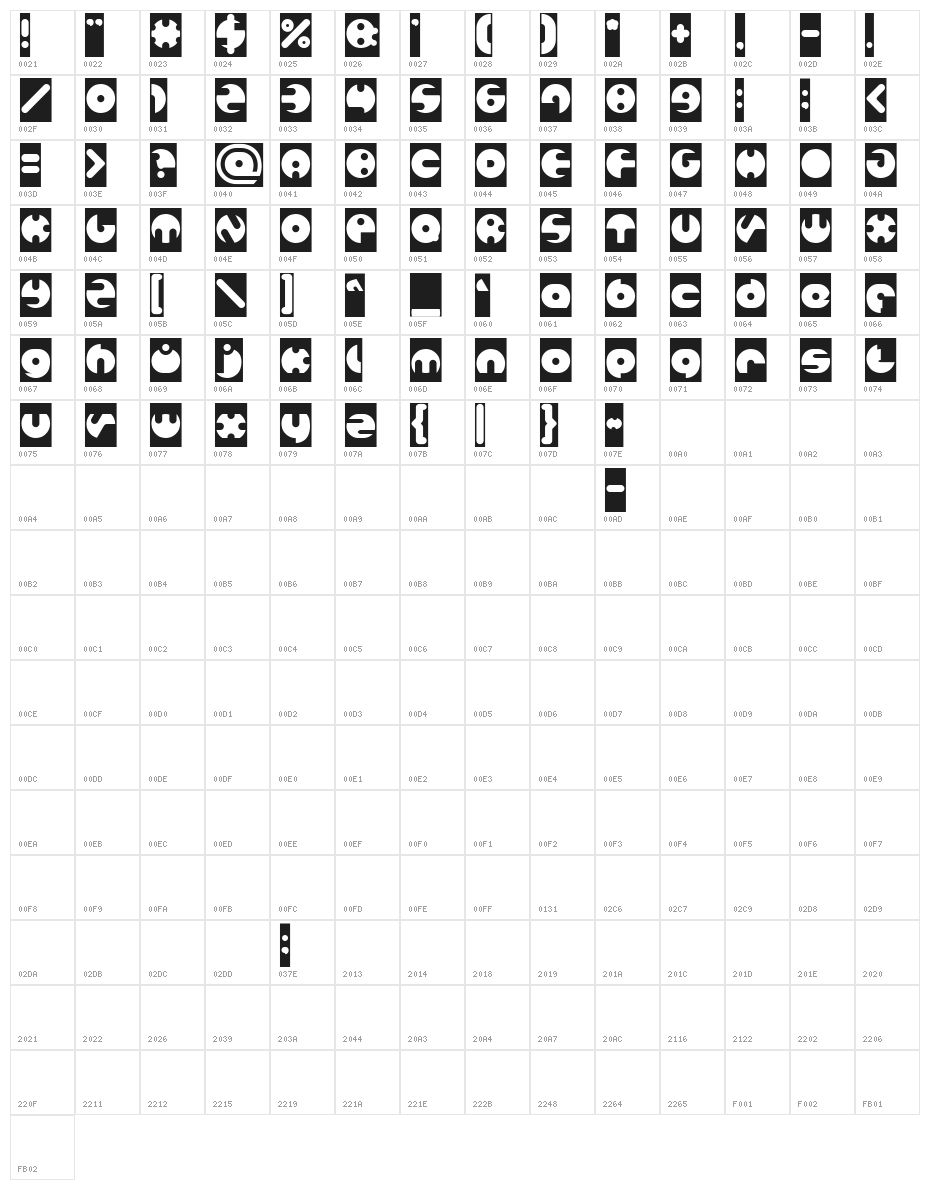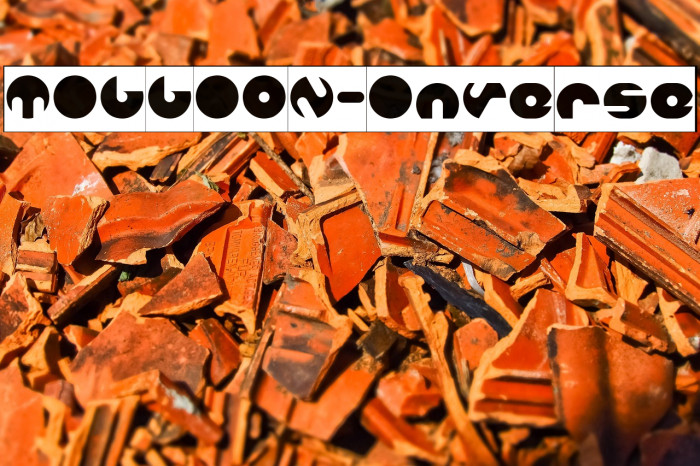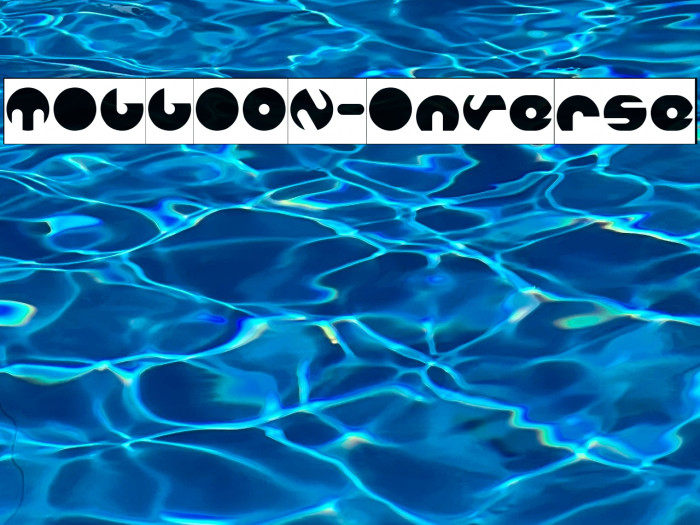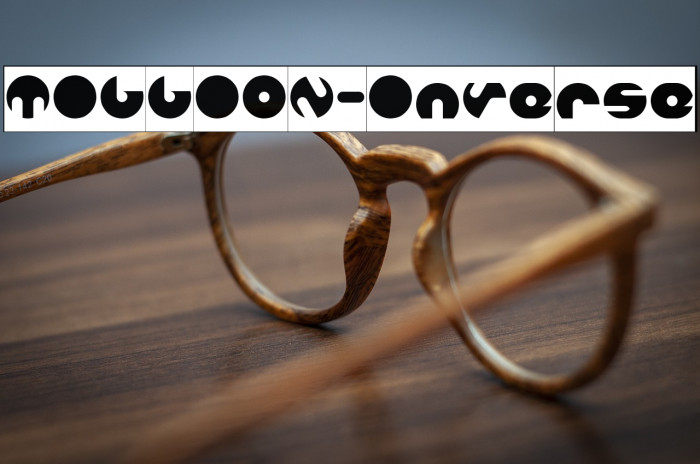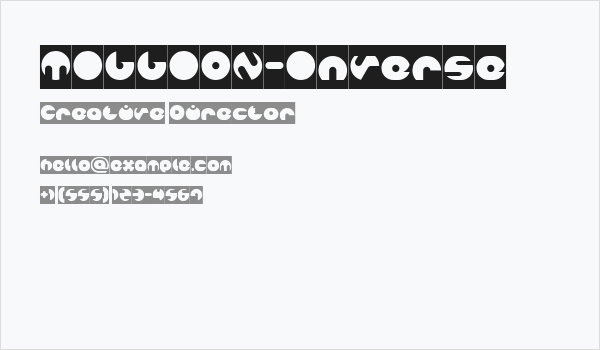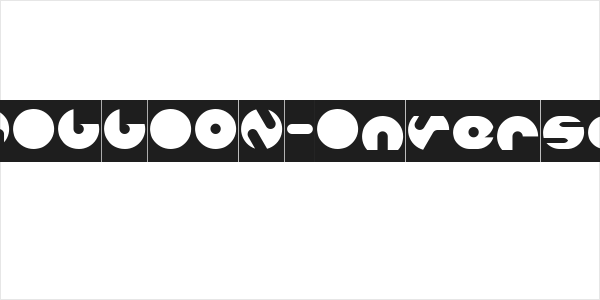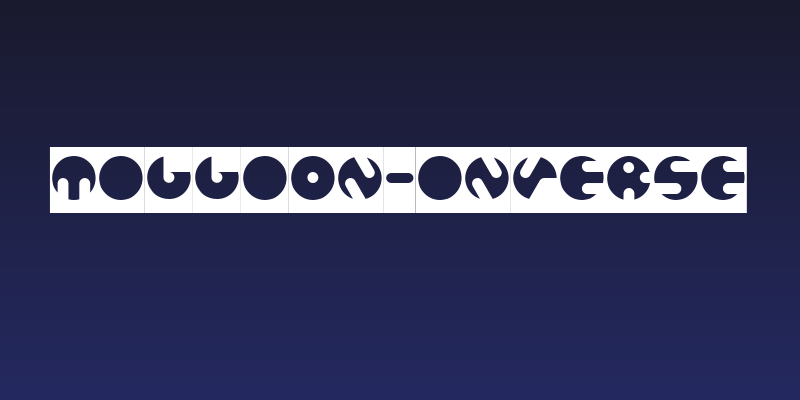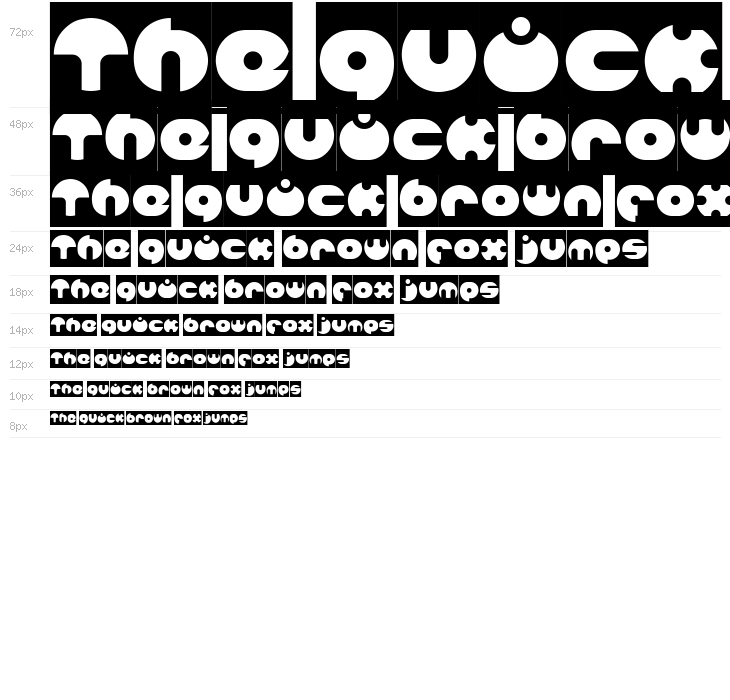
MILLION-Inverse Font
MILLION-Inverse Description
This font features a bold and playful design with a strong geometric influence. Each character is crafted with a unique blend of circular and angular shapes, creating a visually striking and modern appearance. The letters are filled with solid black, contrasting sharply with the white background, enhancing readability while maintaining an artistic flair. The font's distinct style is characterized by its experimental and abstract forms, making it ideal for creative and unconventional projects. The numbers and special characters follow the same design principles, ensuring consistency throughout the typeface.
| Proposed Projects | Ideal for modern art projects, branding for creative industries, eye-catching posters, and unique logo designs. |